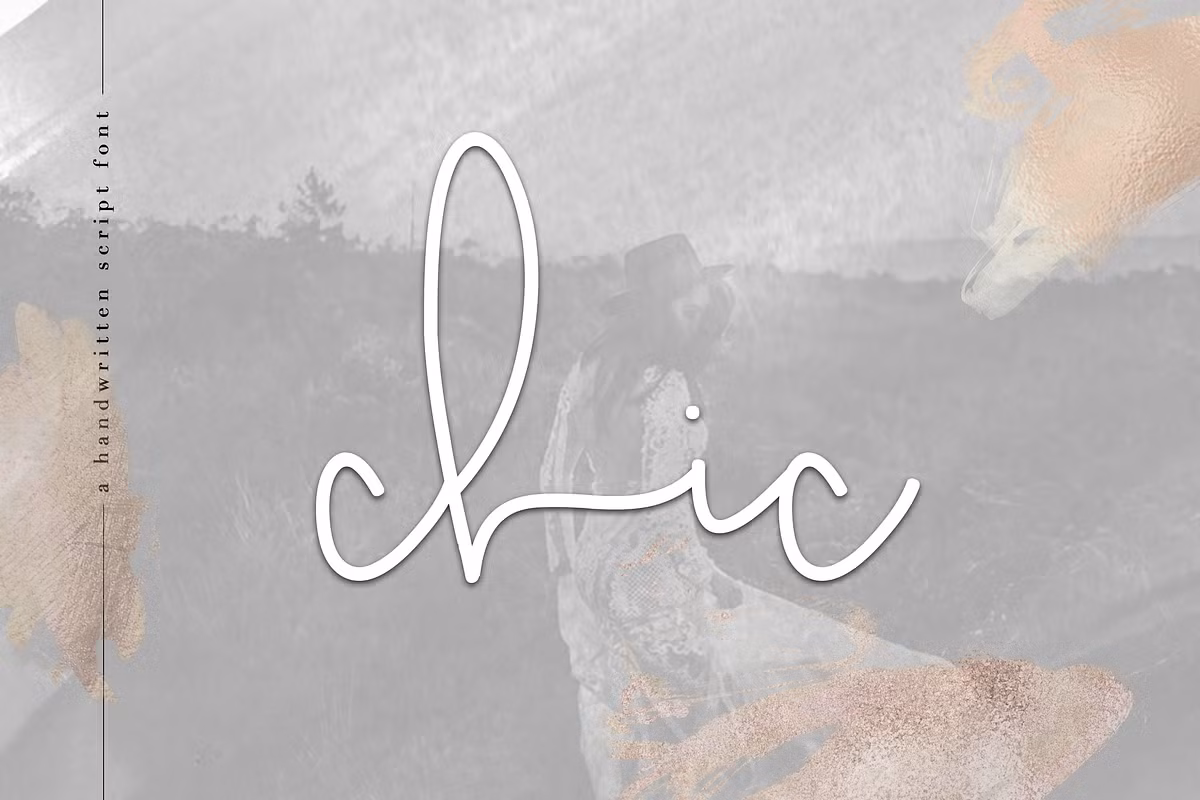
Chic - Handwritten Script Font Free Download
Chic – Handwritten Script Font Free Download
Chic – Handwritten Script Font Free Download is a fashionable and fluid script typeface that exudes modern elegance and effortless charm. With graceful strokes and a natural flow, this font is ideal for personal branding, wedding invitations, Instagram quotes, beauty packaging, and high-end lifestyle content.
Its signature-style look brings a personal, polished touch to every design. Whether you're designing logos, blog headers, or stylish stationery, Chic adds sophistication with just the right amount of flair.
Designers love Chic for its versatility and timeless appeal—perfect for projects that need to feel elevated yet approachable. Want to add a luxurious handwritten vibe to your next creation? Download Chic – Handwritten Script Font Free Download and write your message with elegance and confidence.